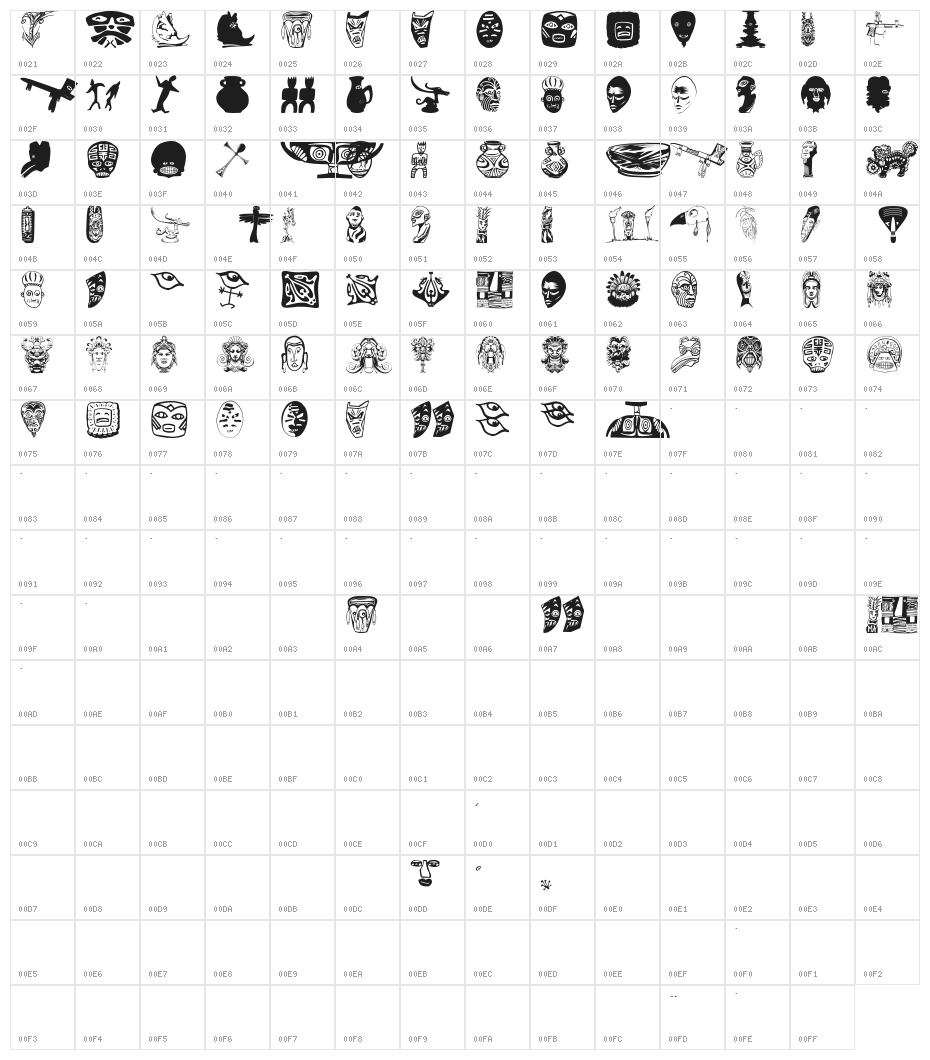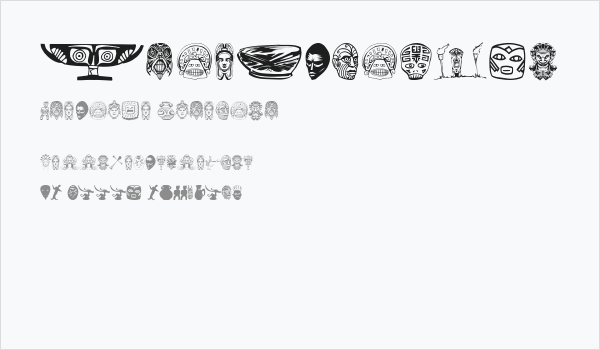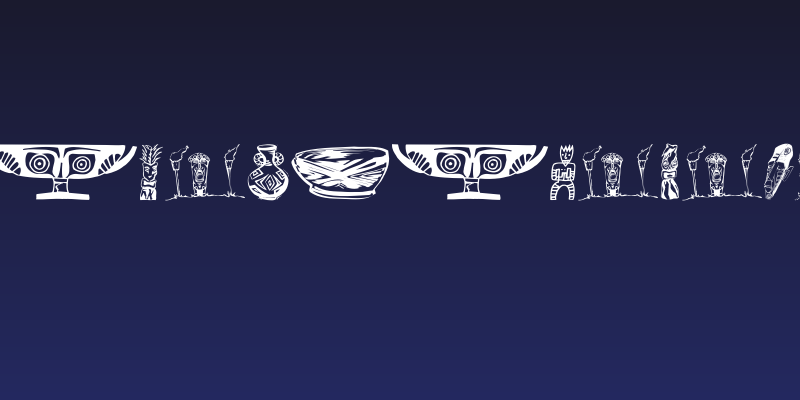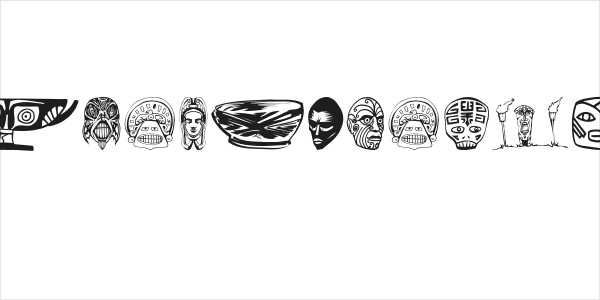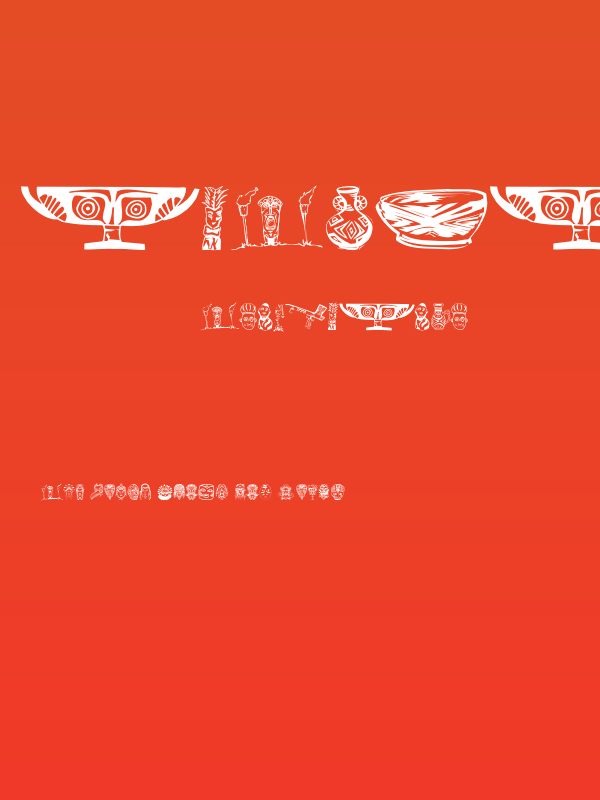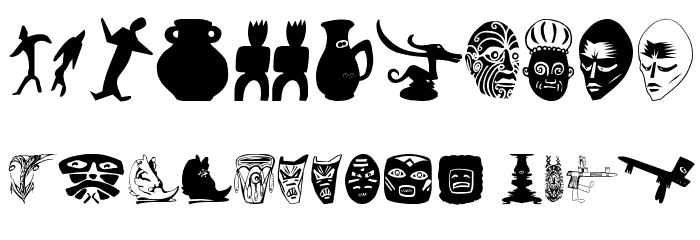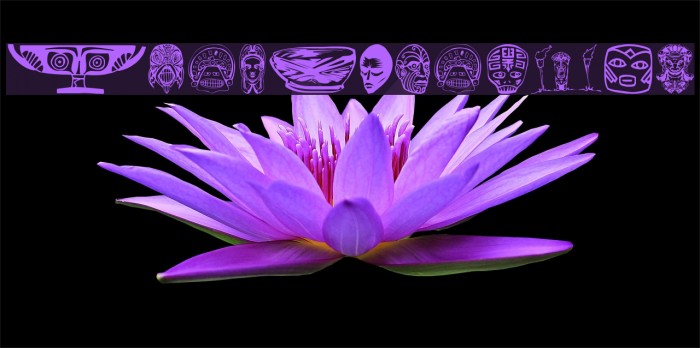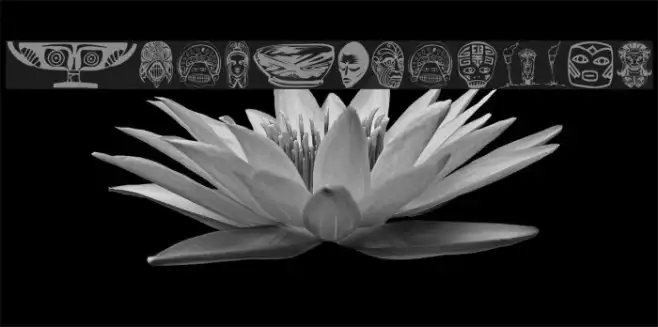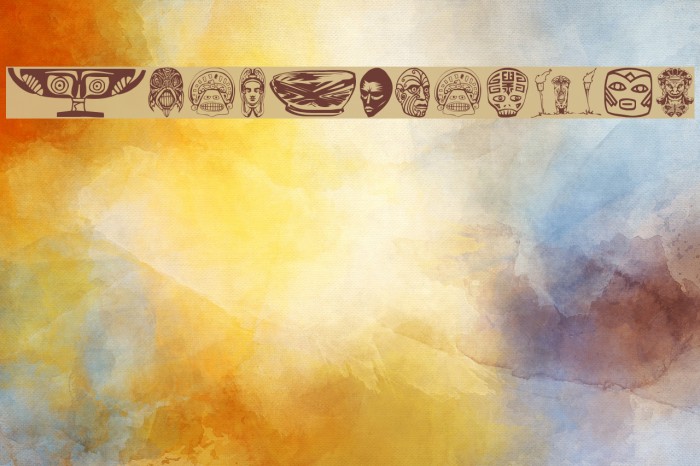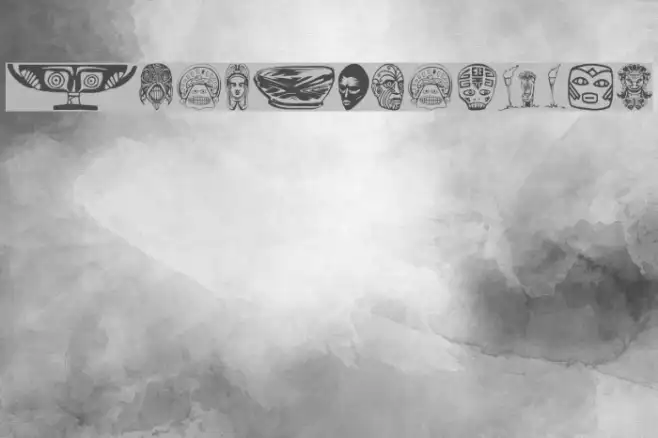
ArteFactsTwo Font
ArteFactsTwo Description
A highly decorative and illustrative font inspired by ancient artifacts, tribal masks, pottery, and indigenous art forms. Each character is represented by a unique pictogram or symbol, making it more of a symbolic or dingbat set than a traditional typeface. The glyphs are bold, detailed, and visually complex, with a strong emphasis on cultural motifs and ornamental design.
| Overall Style | Decorative, Ethnic, Artistic |
| Use Case | Logos, Posters, Themed Graphics, Educational Illustrations |
| Proposed Projects | Posters, educational materials, museum displays, cultural event branding, themed invitations, art projects. |